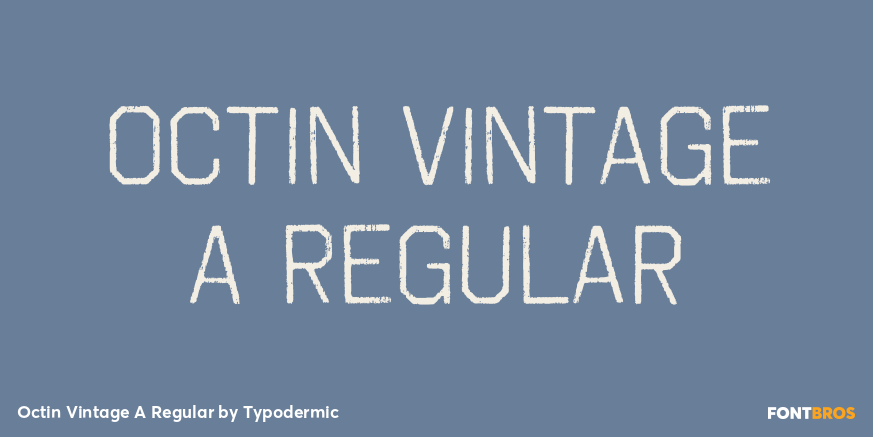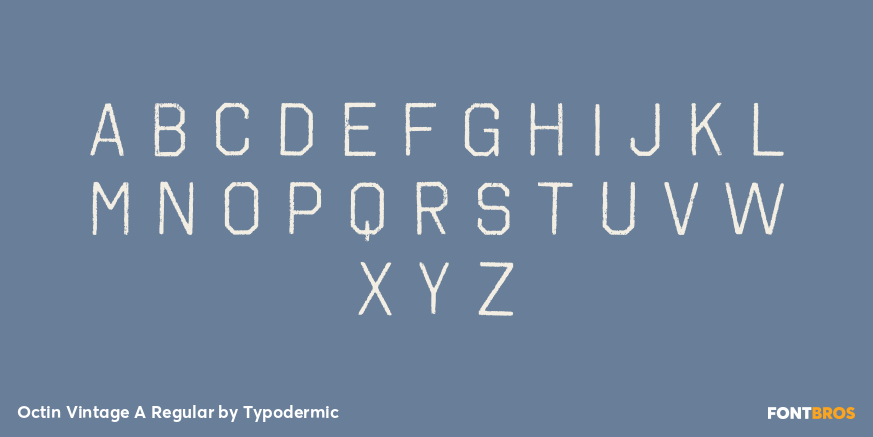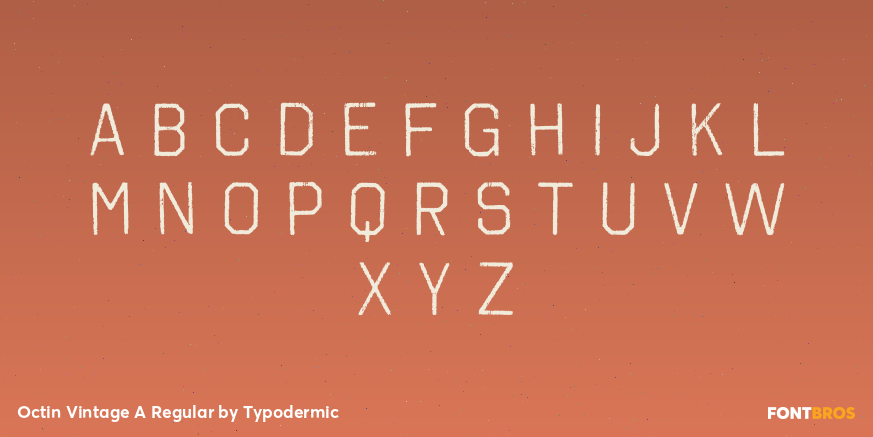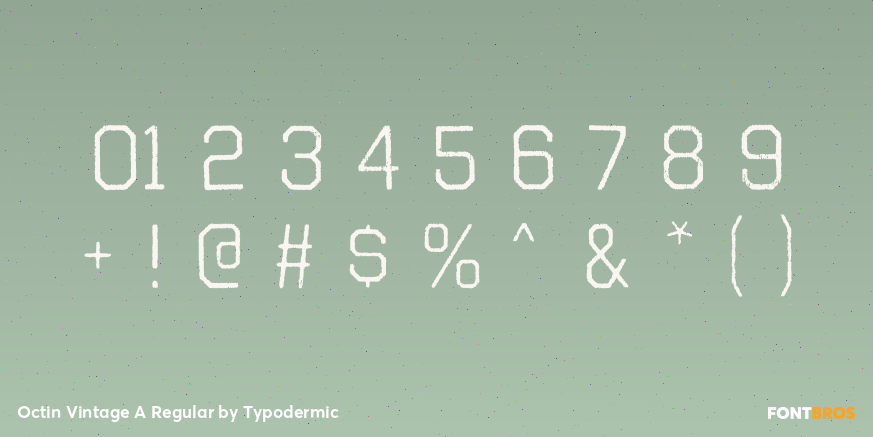
Octin Vintage A Regular
Buy NowOctin Vintage A places the family’s worn, T-shirt-derived texture over an angular sans-serif alphabet. Its clipped corners and unadorned stroke endings keep the structure direct and contemporary, while irregular fading makes newly set words feel printed, handled, and repeatedly worn. It is the cleaner structural branch of the family; Octin Vintage B adds slab serifs for a more traditional athletic voice.
Use Octin Vintage A for team-anniversary campaigns, archive-inspired sports graphics, racing apparel, documentary headings, stadium-history displays, throwback footwear, and heritage merchandise that needs age without imitating one specific historical typeface. The all-caps design is strongest in names, dates, divisions, and short slogans. Regular, Bold, and Black establish hierarchy while retaining the same sans construction and faded surface.